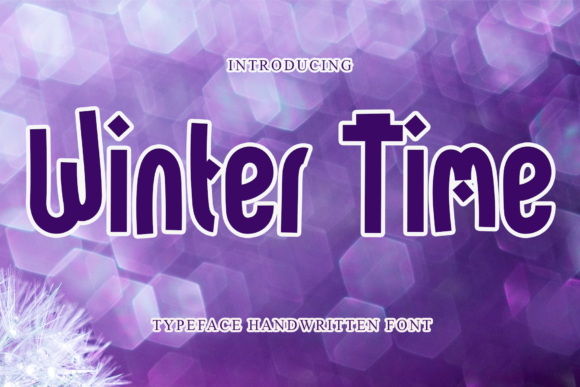
Immerse yourself in the world of Winter Time Font, a display font like no other. Its playful cartoonish charm will ignite your creativity and transport you to a realm of boundless design possibilities. Crafted with meticulous attention to detail by dazzlinggleam, Winter Time Font stands as a testament to artistic excellence. Whether you're designing logos, posters, invitations, or any other visual masterpiece, this font will effortlessly elevate your creations to new heights.
With its vibrant energy and captivating presence, Winter Time Font will leave an indelible mark on your audience. Its versatility knows no bounds, seamlessly adapting to a multitude of projects and themes. Unleash your imagination and let Winter Time Font guide you through a journey of visual storytelling. Transform your designs into captivating works of art that resonate with your audience.
As you delve into the nuances of Winter Time Font, you'll discover a treasure trove of distinctive features that set it apart from the ordinary. Its playful curves and whimsical strokes evoke a sense of nostalgia, while its modern twist ensures it remains relevant and captivating. With Winter Time Font, you'll have the power to craft designs that speak to the heart and leave a lasting impression.
Embrace the magic of Winter Time Font and embark on a creative adventure like never before. Let your imagination soar as you weave captivating tales through your designs. With this font as your ally, you'll unlock a world of endless possibilities, transforming your creative vision into tangible masterpieces. Experience the transformative power of Winter Time Font and redefine the boundaries of design.